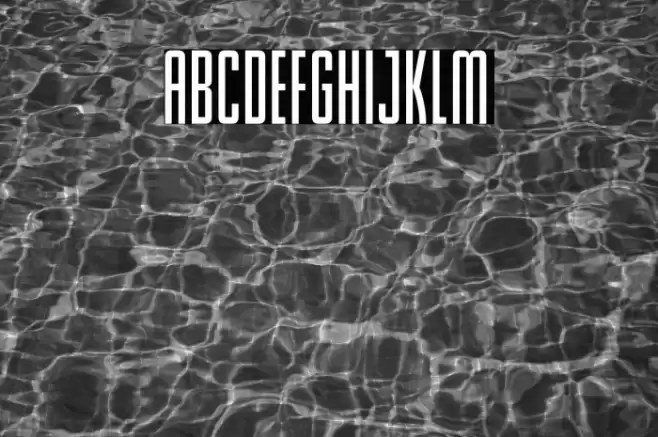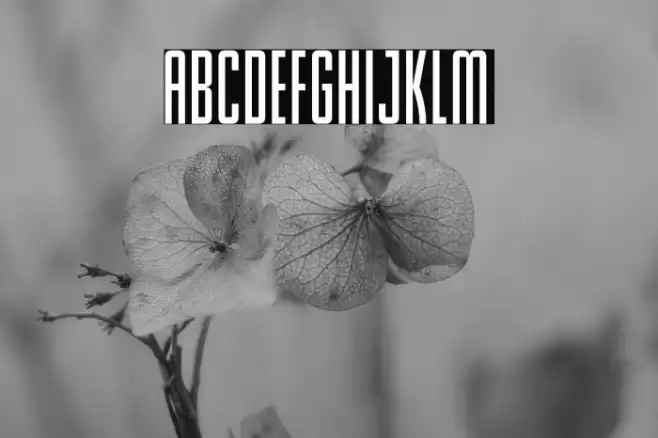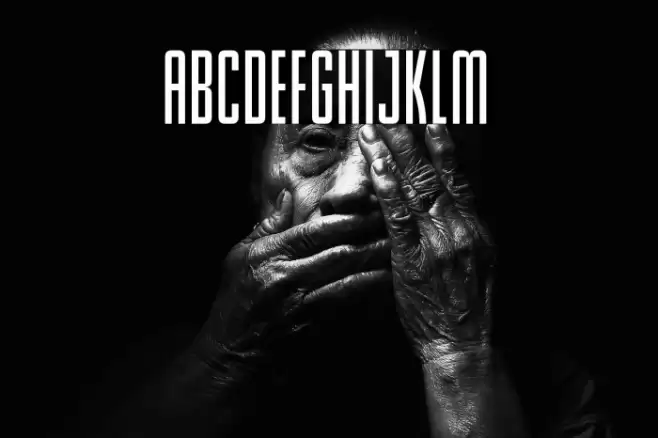
Skinny Sunbeams Font
Skinny Sunbeams Description
This font features a tall and narrow design, characterized by its elongated letterforms and consistent stroke width. The uppercase and lowercase letters maintain a uniform height, contributing to a cohesive and streamlined appearance. The numerals and special characters are designed to match the overall aesthetic, ensuring a harmonious look across all text elements. The font's clean lines and geometric structure make it suitable for modern and minimalist design projects. Its distinctive style is both eye-catching and versatile, making it ideal for a variety of applications.
A tall, narrow font with consistent stroke width and a modern, minimalist style from Uncategorized fonts.
- Font: Skinny Sunbeams
- Proposed Projects: Ideal for branding, posters, headlines, and any project requiring a modern and sleek aesthetic.